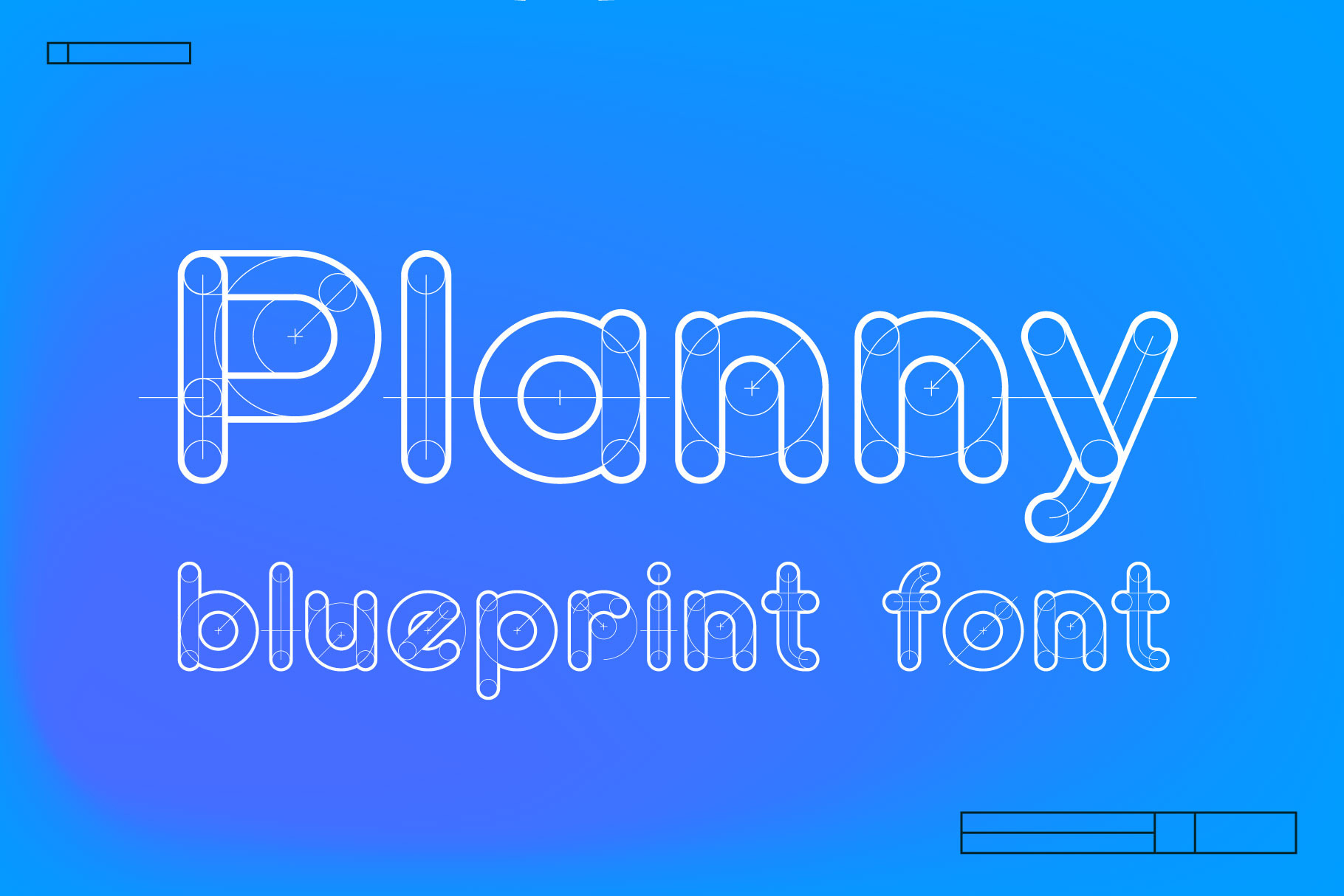
Planny blueprint font
Planny is a blueprint font created for reproduction of a technical drawing or engineering drawing. All characters were designed with construction lines. The blueprint process was characterized by white lines on a blue background, a negative of the original.
- Regular style
- Uppercase and lowercase glyphs
- Numbers and symbols